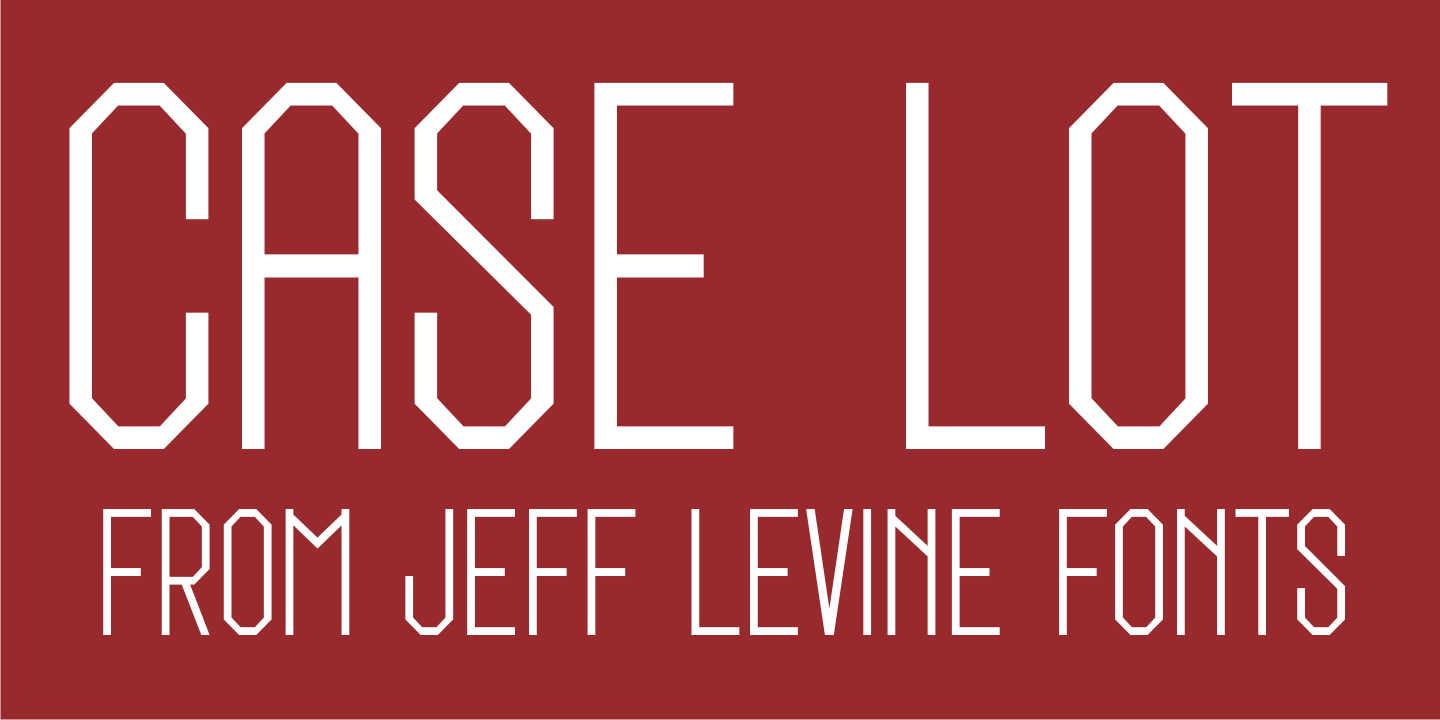
Case Lot
A style example found within the pages of a vintage type foundry catalog inspired Case Lot JNL. The design is a classic early 20th Century sans with chamfered corners.